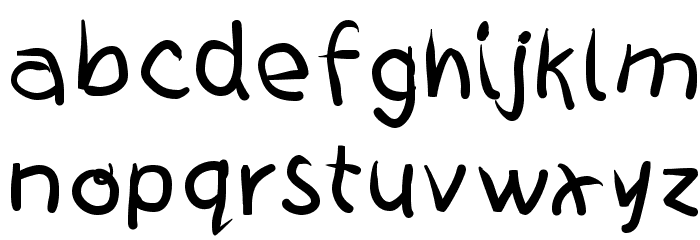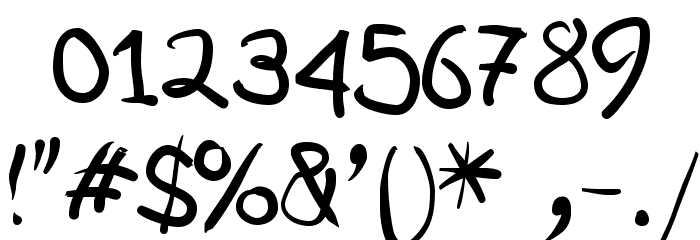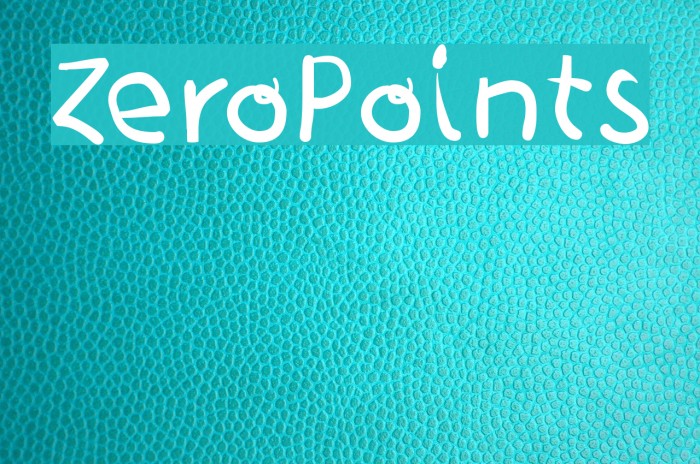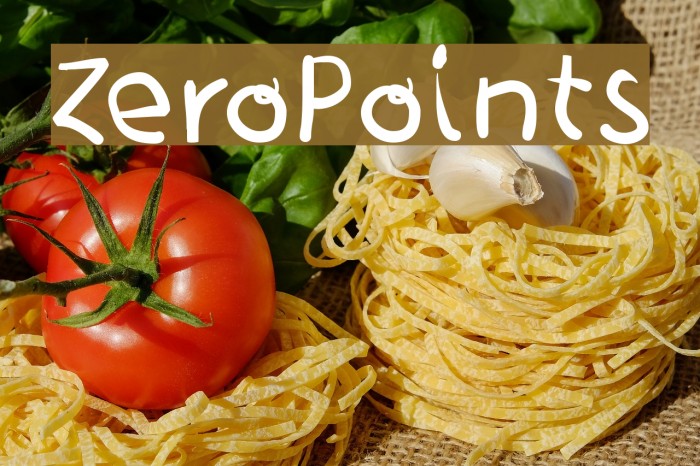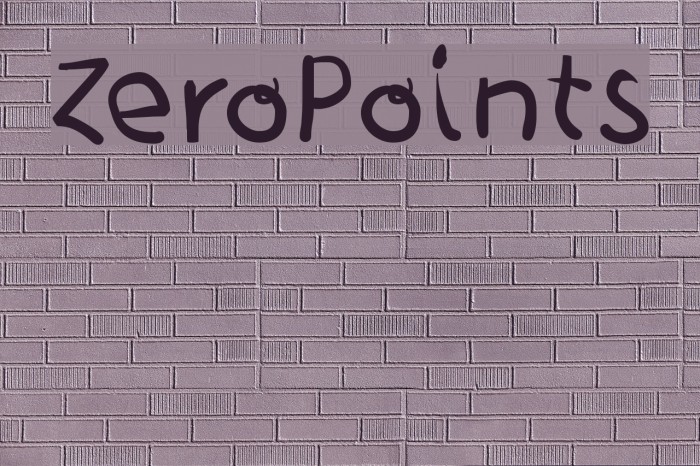
ZeroPoints Font
This font exhibits a playful and informal handwritten style, characterized by its irregular and slightly whimsical letterforms. The strokes are uneven, giving it a casual and approachable appearance. The uppercase letters maintain a consistent height, while the lowercase letters vary slightly in size, adding to the font's charm. The numerals are bold and clear, ensuring readability. Special characters are creatively designed, complementing the overall aesthetic. This font is ideal for projects that require a personal touch or a friendly, informal vibe.
A playful, informal handwritten font with irregular strokes.
- Proposed Projects: Ideal for greeting cards, children's books, casual invitations, and playful branding.
- Overall Style: Casual, Playful
- Use Case: Headlines, Informal text, Creative projects